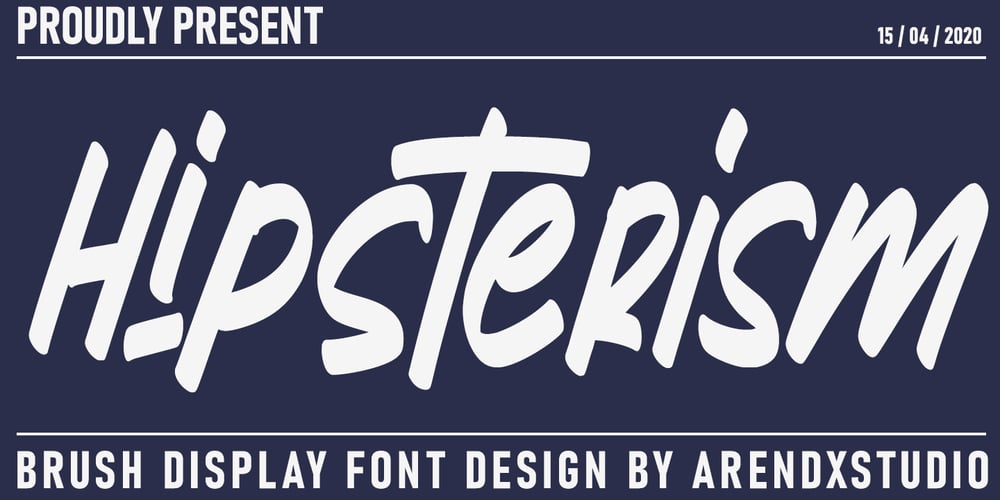
Hipsterism Font Family was designed by Asep Rendi and published by Arendxstudio. Hipsterism contains 1 styles and family package options. Hipsterism is a bold script with its distinctive character that can be easily implemented in your various design projects. Hipsterism comes with OpenType features such stylistic alternates, stylistic sets & ligatures which make it a great choice for logotype, posters, badges, book covers, t-shirt design, packaging and more.Features : • Character Set A-Z • Numerals & Punctuation (OpenType Standard) • Accents (Multilingual characters) • Ligatures • AlternatesThere it is! I really hope you enjoy it